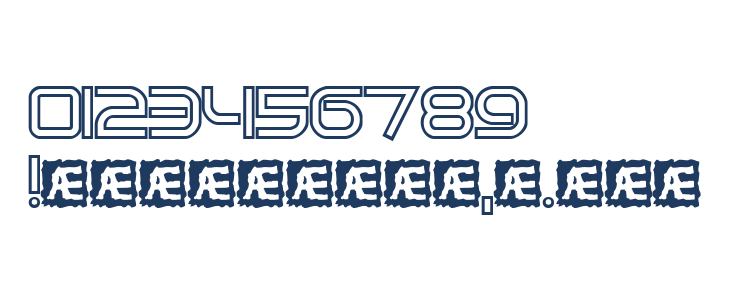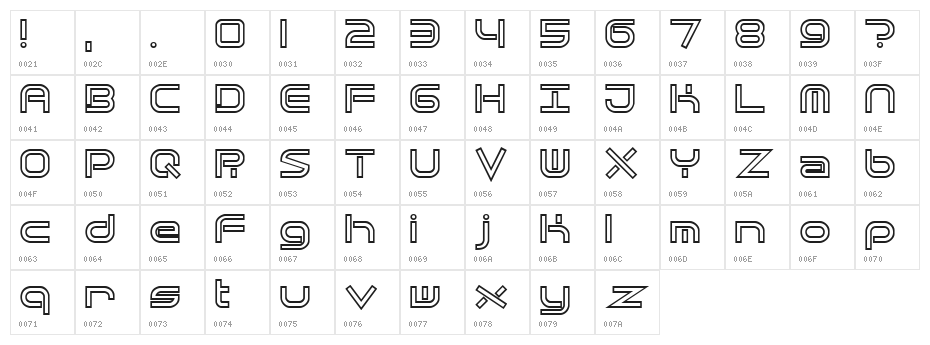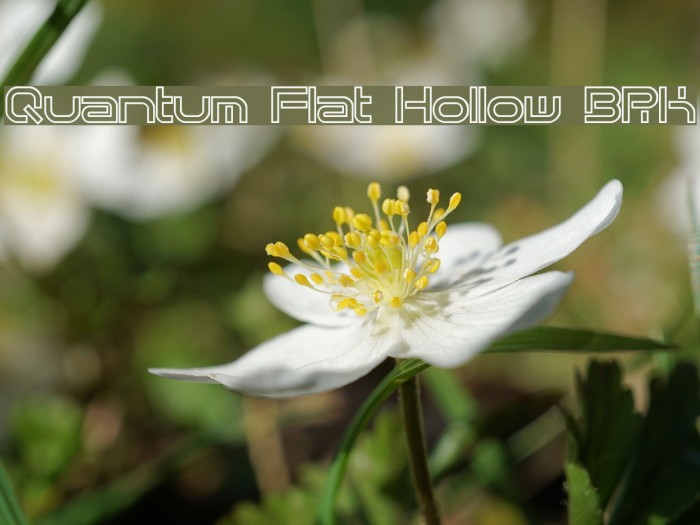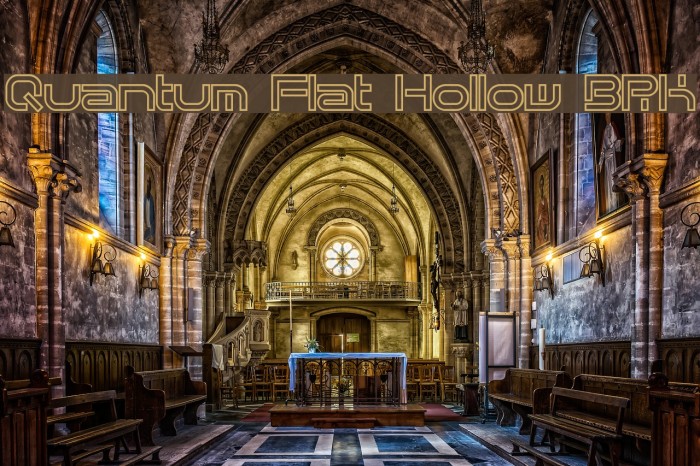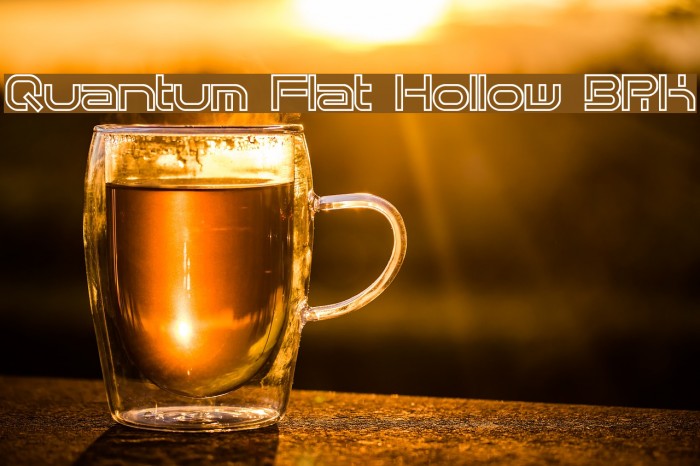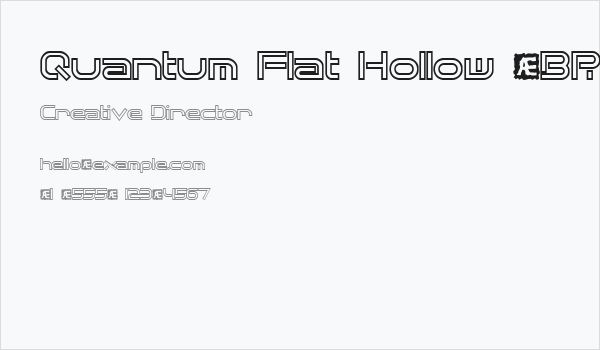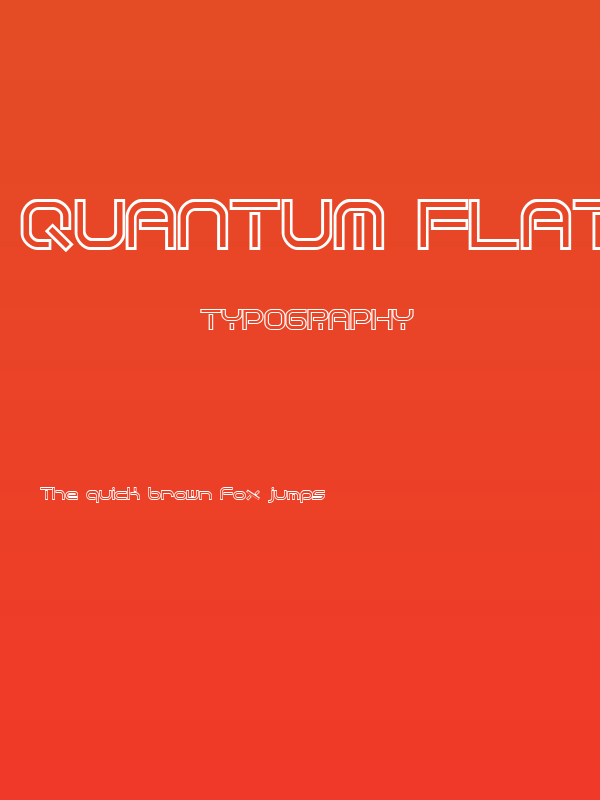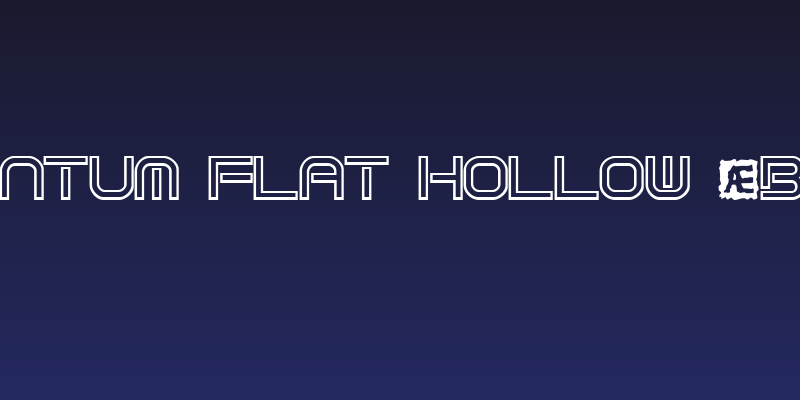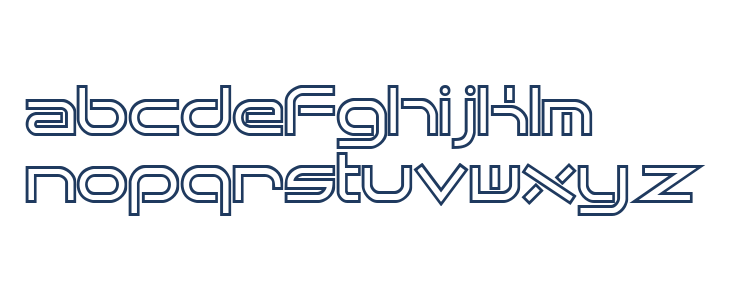
Quantum Flat Hollow [BRK] Font
Quantum Flat Hollow [BRK] Description
This font features a futuristic and geometric design with hollow, outlined characters. The uppercase and lowercase letters maintain a consistent style, characterized by clean lines and angular shapes. The numerals follow the same design principles, ensuring uniformity across all characters. The special characters are integrated seamlessly, maintaining the font's distinct hollow appearance. This font's unique style makes it suitable for projects that require a modern and tech-inspired aesthetic.
| Proposed Projects | Ideal for tech branding, sci-fi posters, digital interfaces, and modern art projects. |